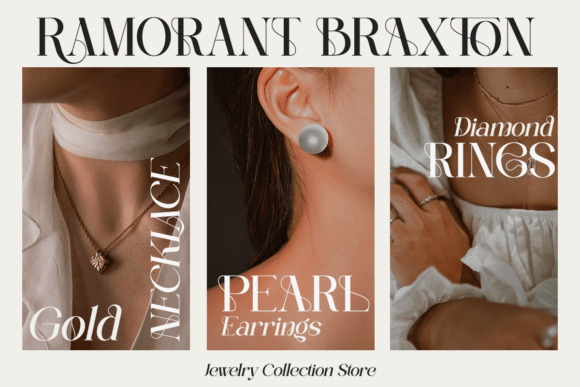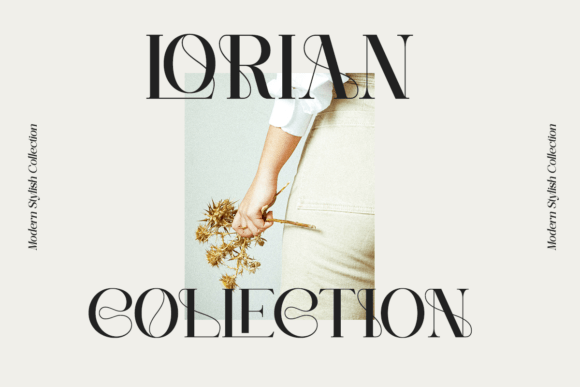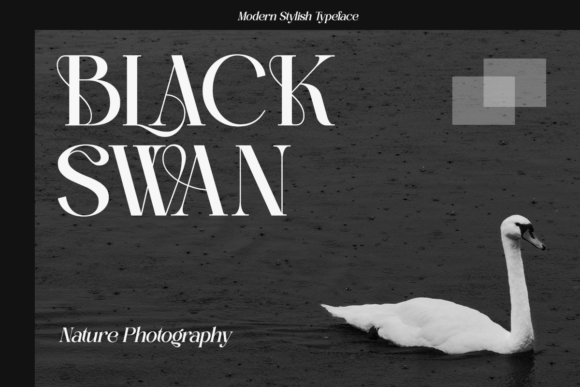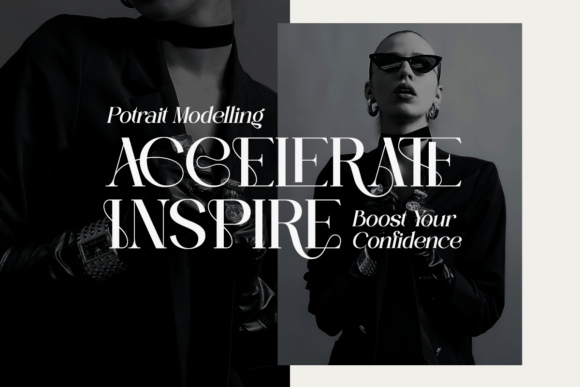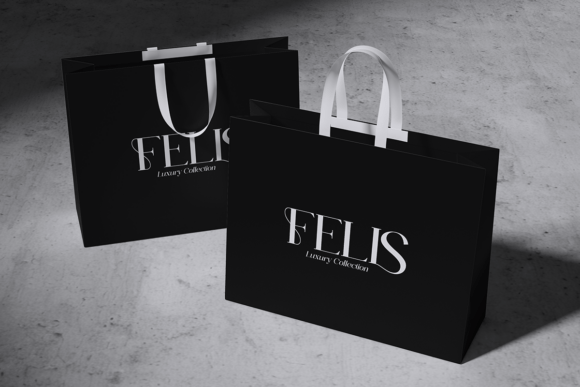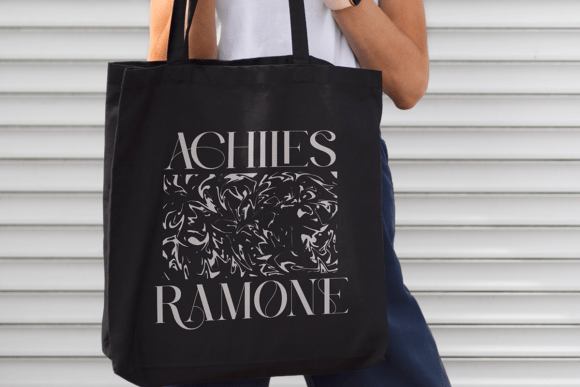
Introducing Balenia Font: Elevate Your Designs with Contemporary Refinement
In the world of typography, a font can make or break the aesthetic of a design. For those seeking a modern, elegant serif font that exudes sophistication and style, look no further than Balenia. This stunning typeface is designed to bring a touch of contemporary refinement to your projects, making it perfect for high-end branding, editorial design, luxury fashion, beauty products, and lifestyle-themed creations.
The Distinctive Charm of Balenia
Balenia’s striking curves and classic structure command attention, setting it apart from other serif fonts. Its graceful curves, balanced contrast, and stylish character forms create a distinctive look that is both refined and captivating. The font’s clean serif structure is beautifully complemented by artistic flair, particularly noticeable in its flowing ligatures and subtly decorative terminals.
Balenia Font Example
Perfect for High-End Designs
Balenia’s elegant design makes it an excellent choice for luxury brands, fashion designers, and beauty product creators. Its sophisticated aesthetic is well-suited for logos, headlines, magazine layouts, wedding invitations, and social media visuals. Whether you’re looking to create a lasting impression or simply want to elevate your brand’s visual identity, Balenia is the perfect choice.
Key Features of Balenia Font
• Modern Serif Typeface: Balenia boasts a contemporary design with a classic serif structure, making it perfect for a wide range of applications.
• PUA-Encoded: The font is PUA-encoded, ensuring effortless access to all glyphs, swashes, and alternate characters.
• Flowing Ligatures: Balenia’s ligatures add a touch of elegance and sophistication to your designs.
• Subtly Decorative Terminals: The font’s terminals feature a beautiful, subtle decoration that adds to its overall charm.
• Versatility: Balenia is suitable for a wide range of projects, from logos and headlines to magazine layouts and social media visuals.
Why Choose Balenia Font?
Balenia offers a unique combination of style, versatility, and charm, making it an excellent addition to any designer’s toolkit. Its modern design, elegant aesthetic, and artistic flair set it apart from other serif fonts. With Balenia, you can:
• Create stunning logos and branding materials that exude sophistication and style.
• Elevate your editorial designs with a font that commands attention.
• Add a touch of luxury to your fashion and beauty product designs.
• Enhance your lifestyle-themed projects with a font that embodies refinement and elegance.
If you’re looking for a font that will take your designs to the next level, look no further than Balenia. Its unique blend of modern style, elegance, and artistic flair makes it the perfect choice for designers and crafters seeking to create stunning, high-end designs. Download Balenia font today and experience the power of typography in elevating your creative projects.
In conclusion, Balenia font is a game-changer for designers and crafters seeking to add a touch of contemporary refinement to their projects. Its elegant design, artistic flair, and versatility make it an excellent choice for a wide range of applications. With Balenia, you can create stunning designs that exude sophistication, style, and luxury. So why wait? Download Balenia font today and start elevating your designs to new heights.